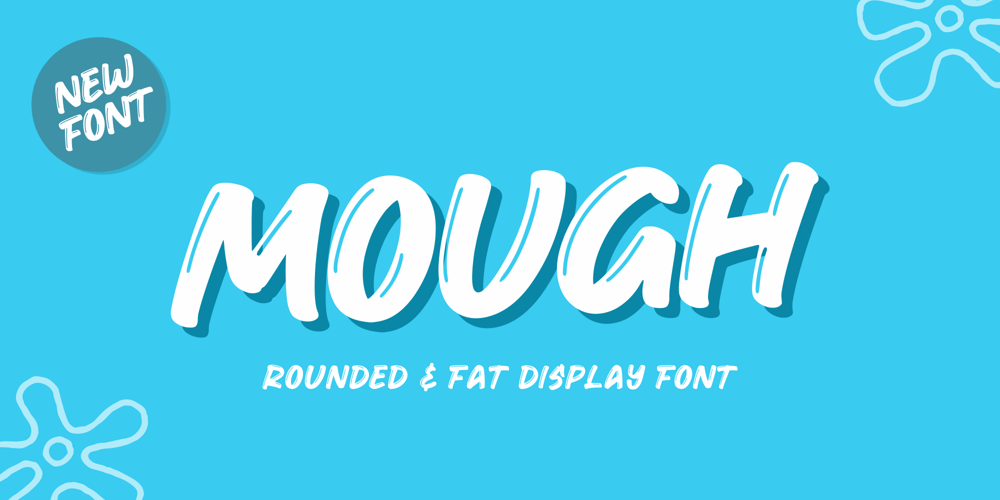
Mough Font Family was designed by Bagus Arya Kirana and published by Krntype Studio. Mough contains 1 styles and family package options. a bold marker display font. Font with round and fat style. Mough imitate round marker pen in a clean way, this font fits perfectly into any background.Mough is perfect for many design such as merch, T-shirts, titles, book covers, social media posts, websites, events, and many more